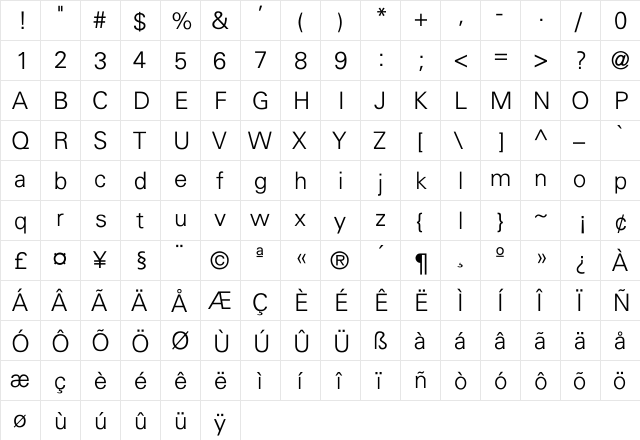
Frontenac-Light-Normal Regular
Design Context for Frontenac-Light-Normal Typeface
Frontenac-Light-Normal offers clean, dependable letterforms without strong stylistic allegiance, making it a practical choice for designers who need flexibility. The delicate stroke weight brings airiness and refinement to layouts.